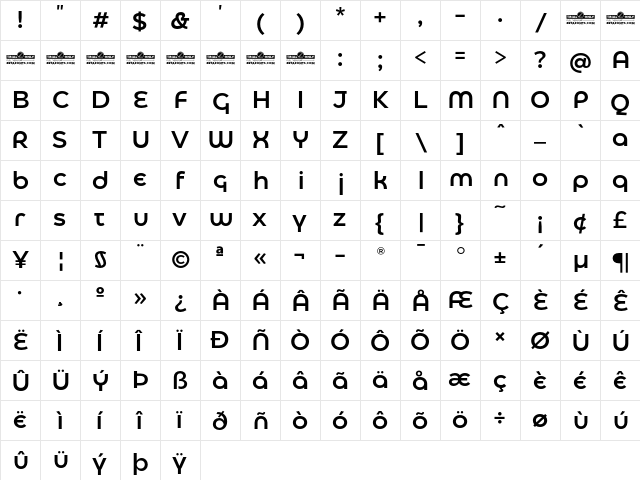
Eastman Alternate Trial Medium
| Foundry | Zetafonts |
| Designer | Francesco Canovaro |
Design Context for Eastman Alternate Trial Typeface
Eastman Alternate Trial takes a measured approach to typography — its balanced proportions and neutral character make it a reliable workhorse for both digital and print work.